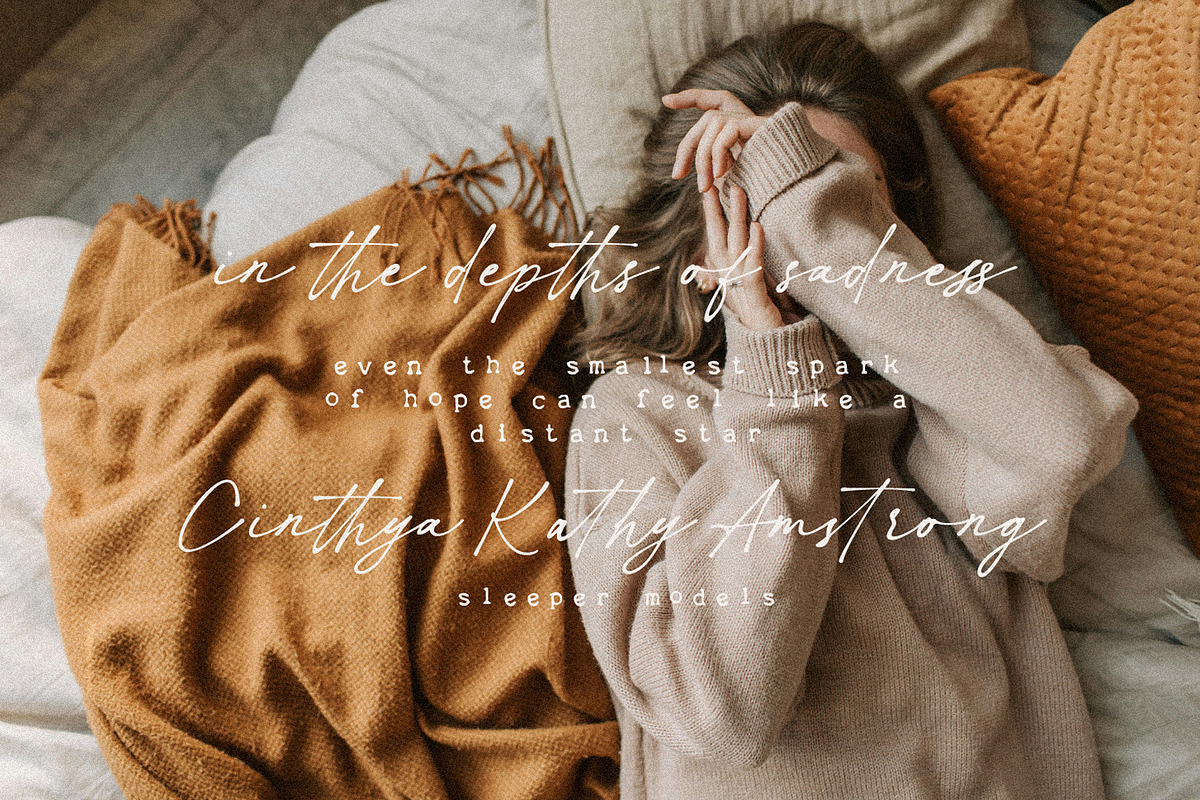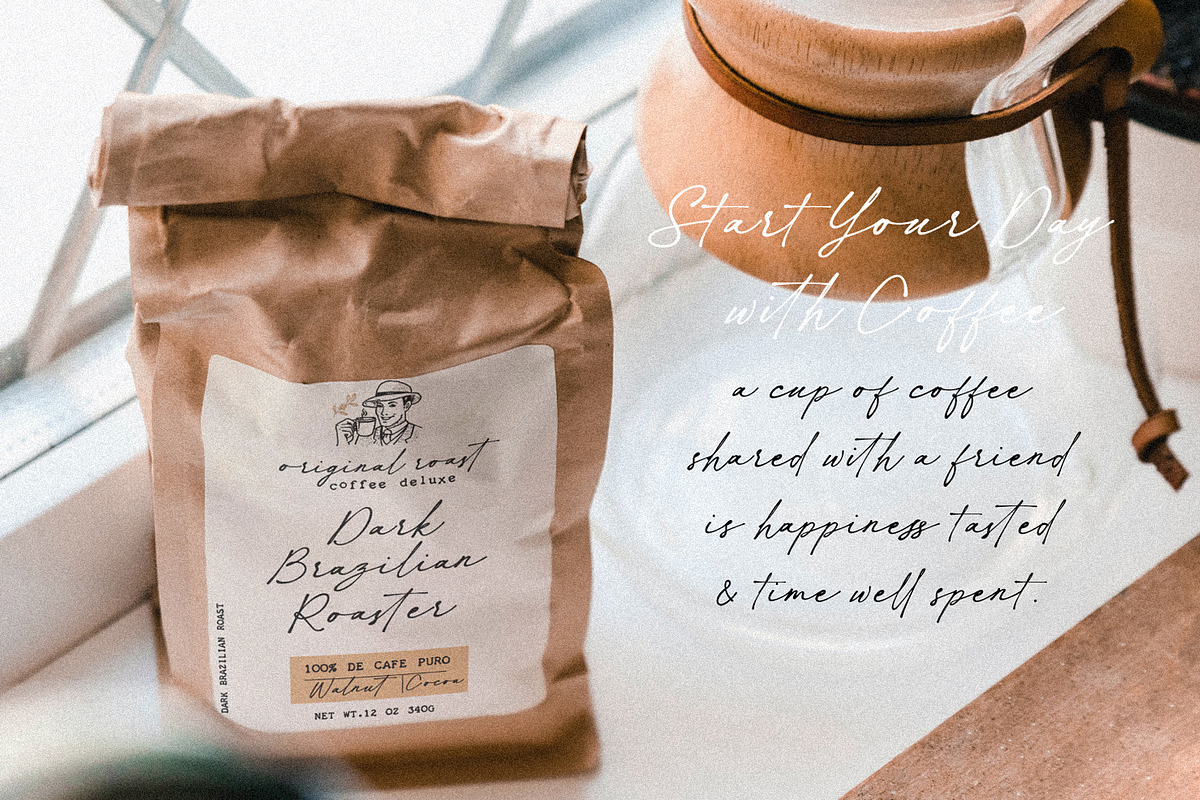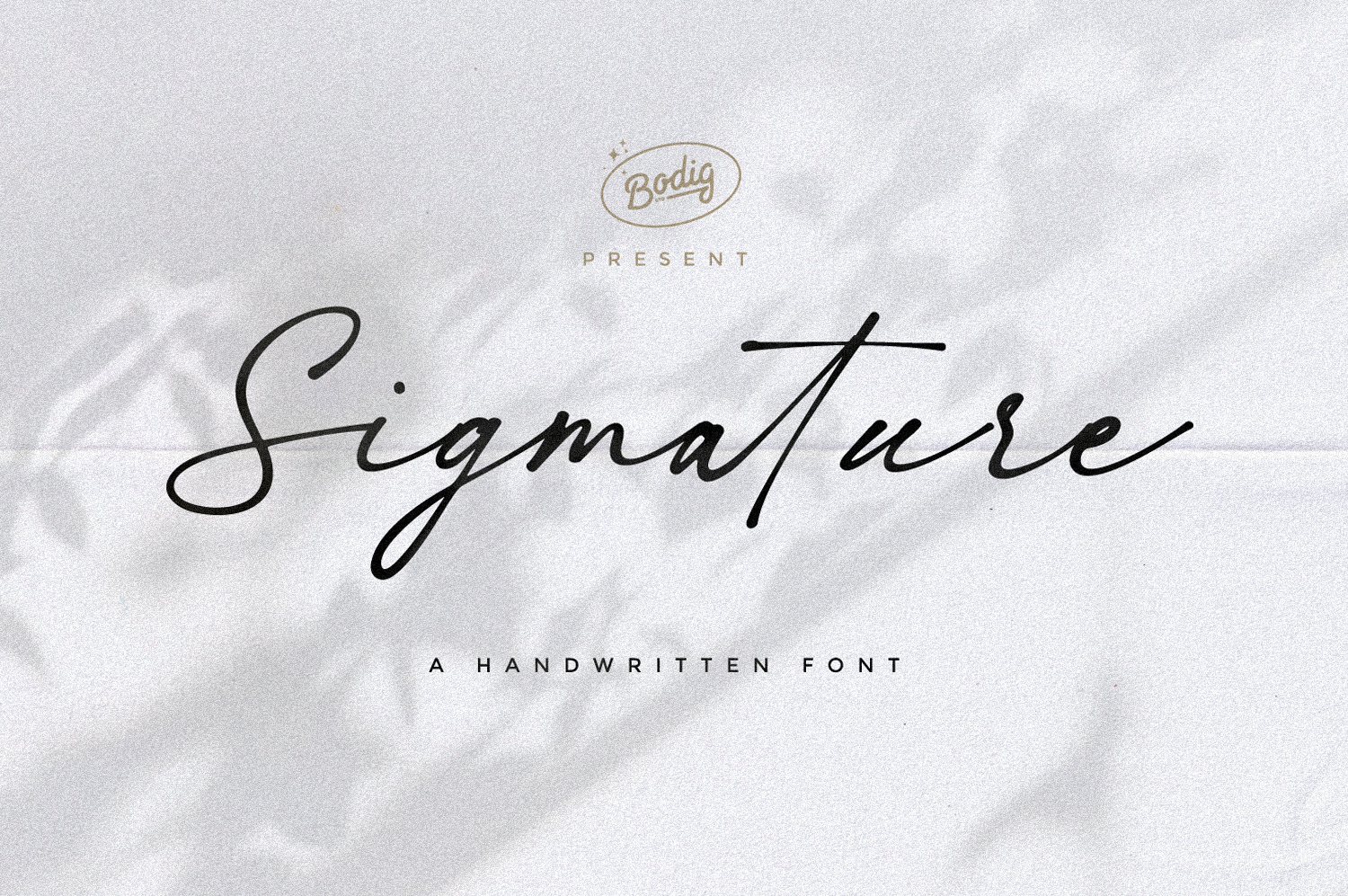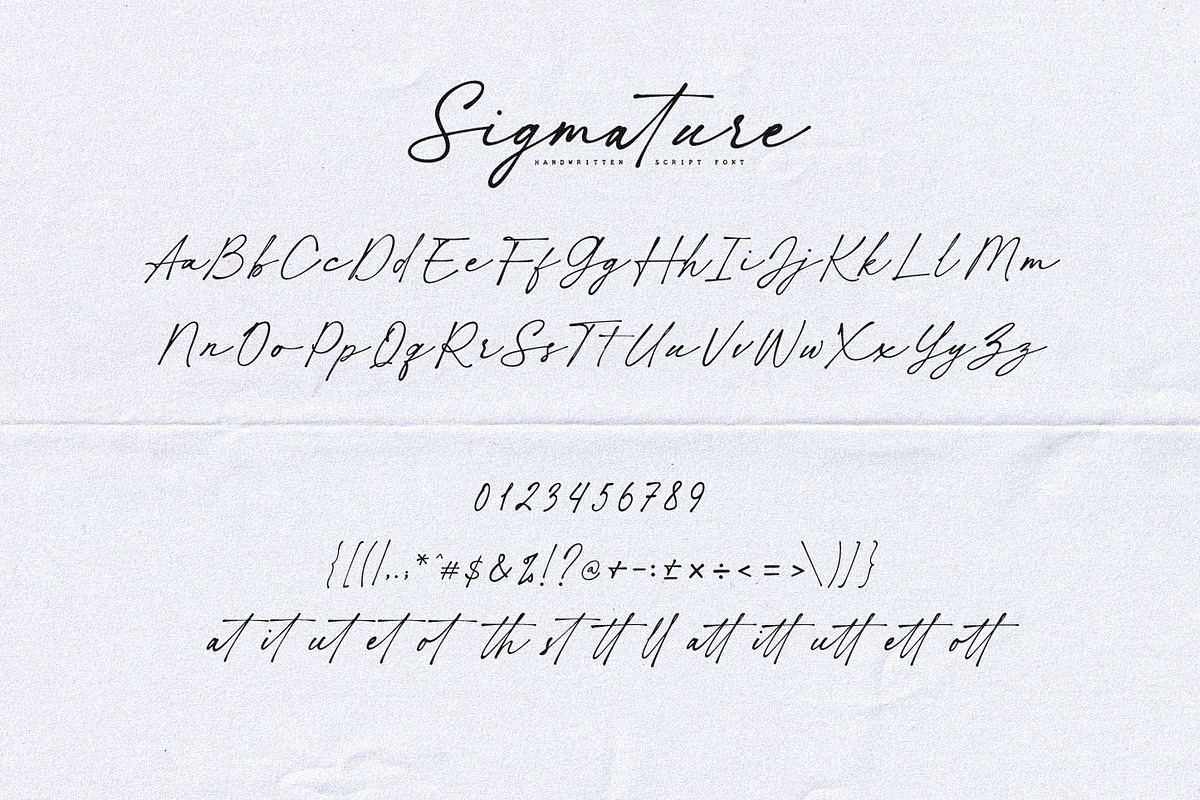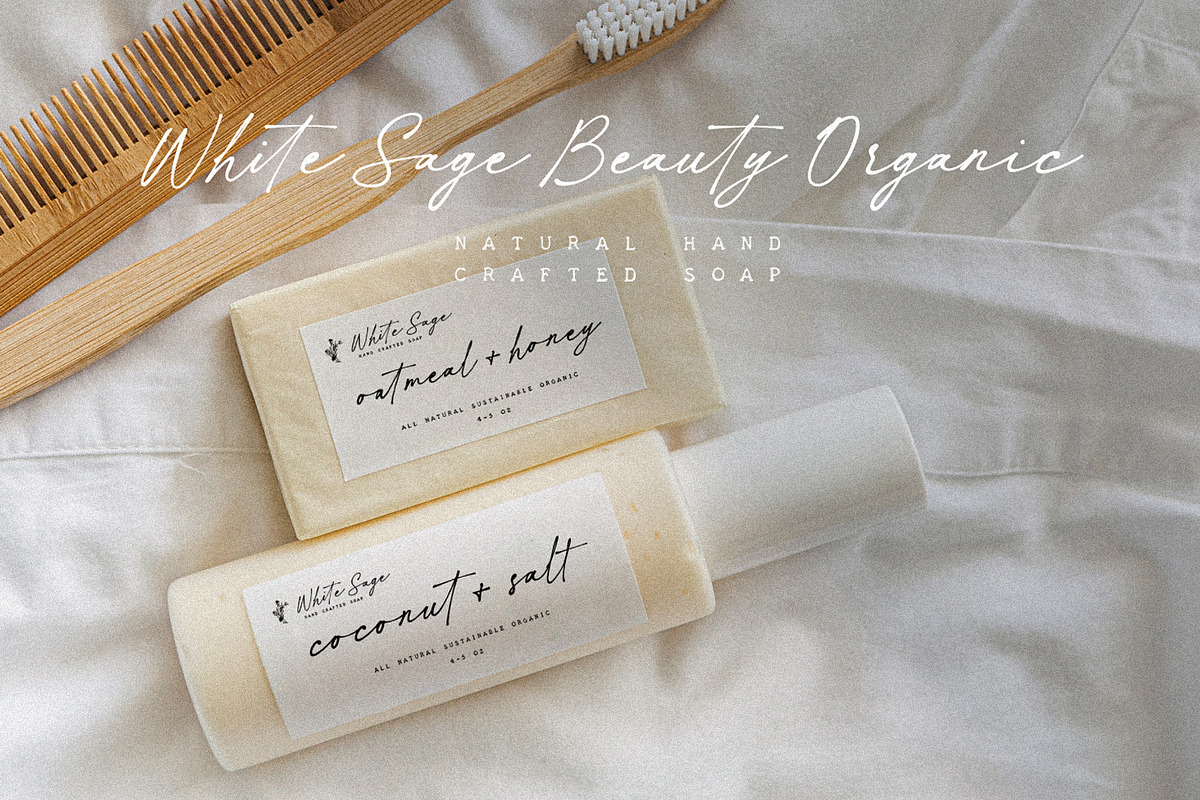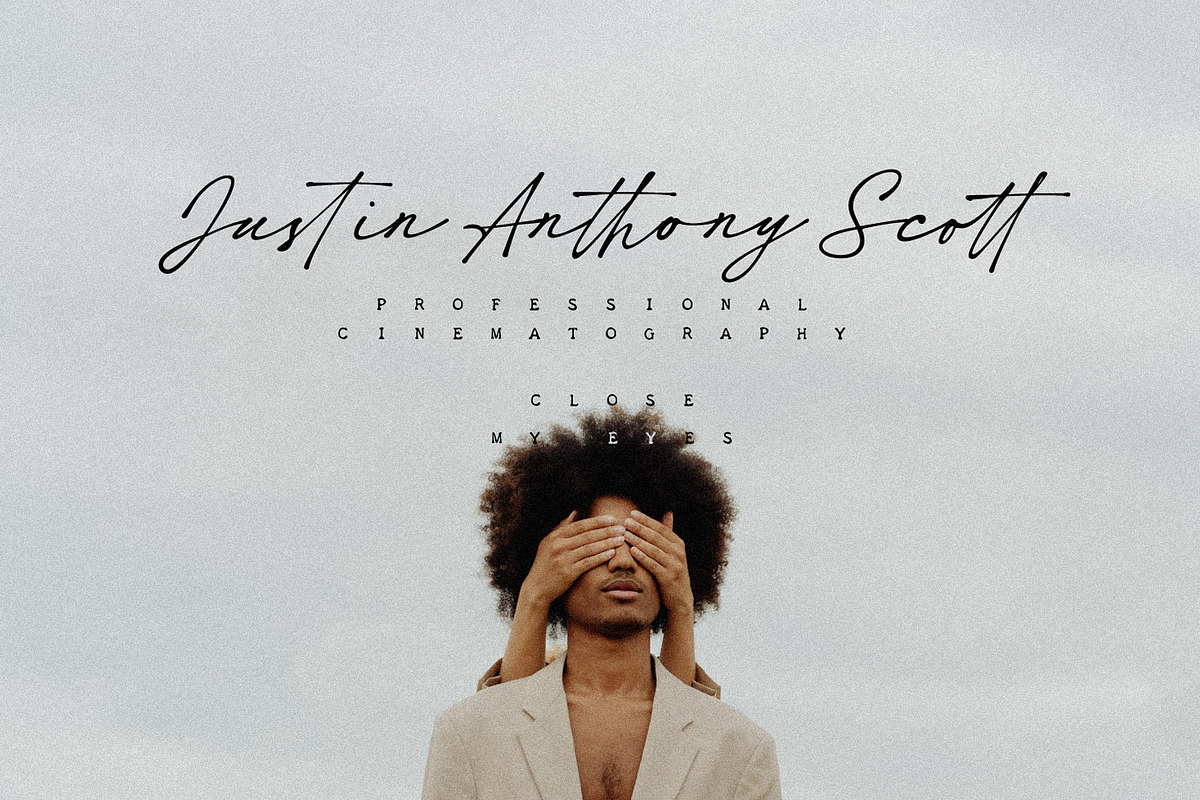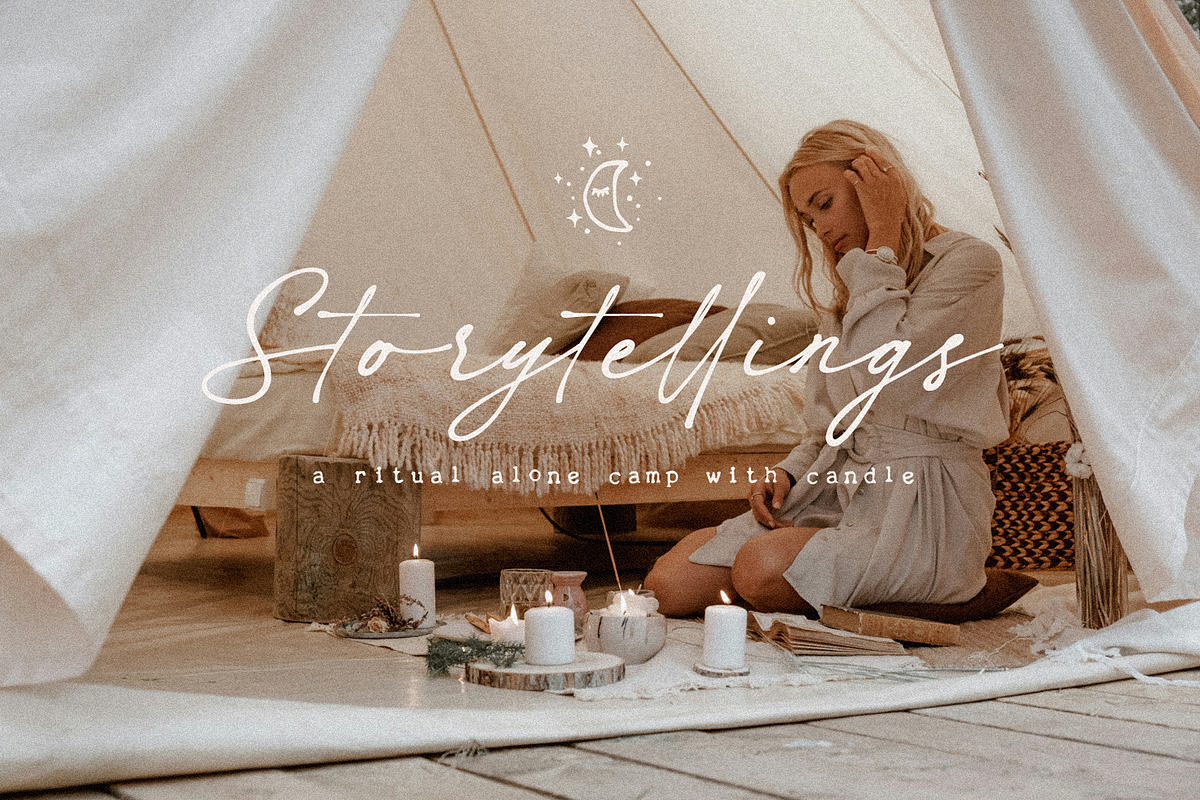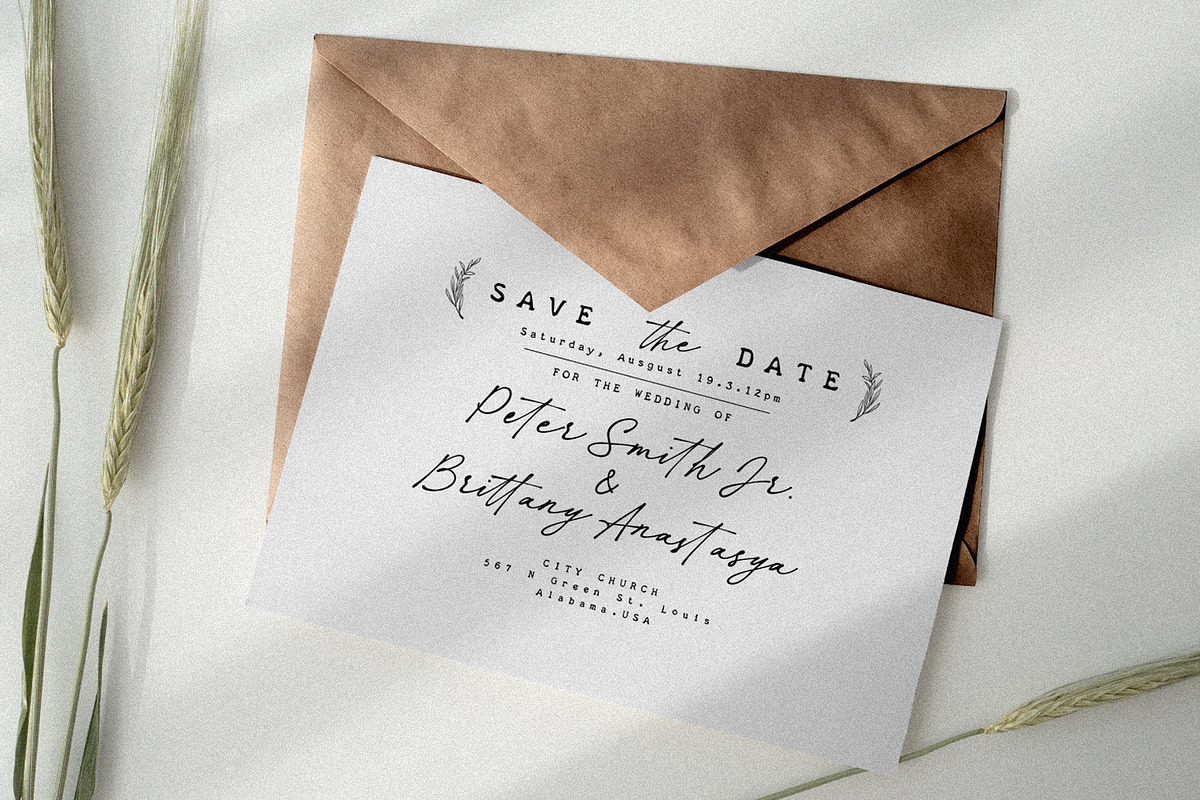
Sigmature Font
Sigmature is imperfectly charming handwritten script font. This carefree handwritten typeface was influenced by writings, versatility makes it suitable for a range of design applications, from high-end invitations to sophisticated branding materials and beyond. Sigmature font is here to liven up your amazing design works.